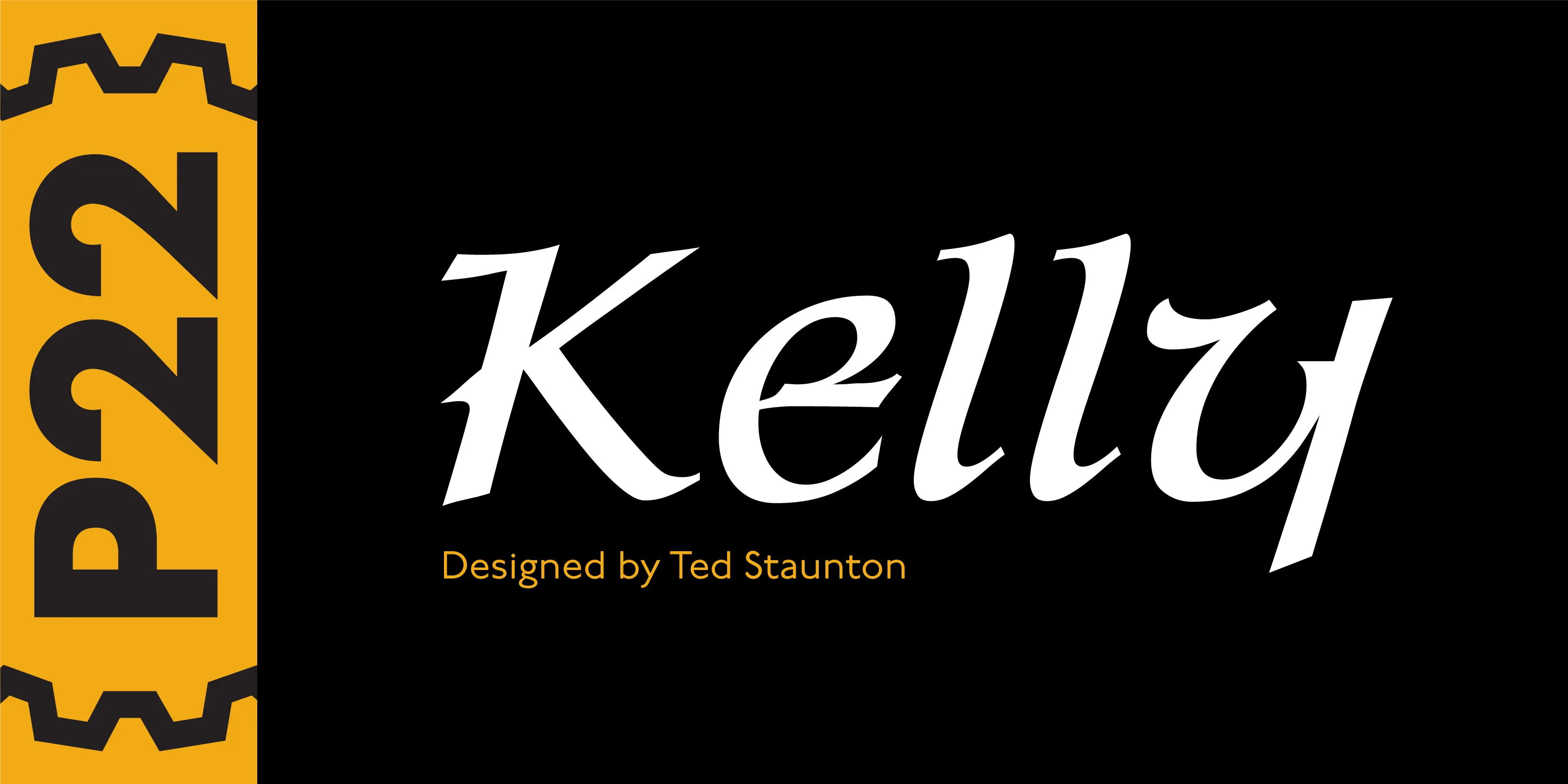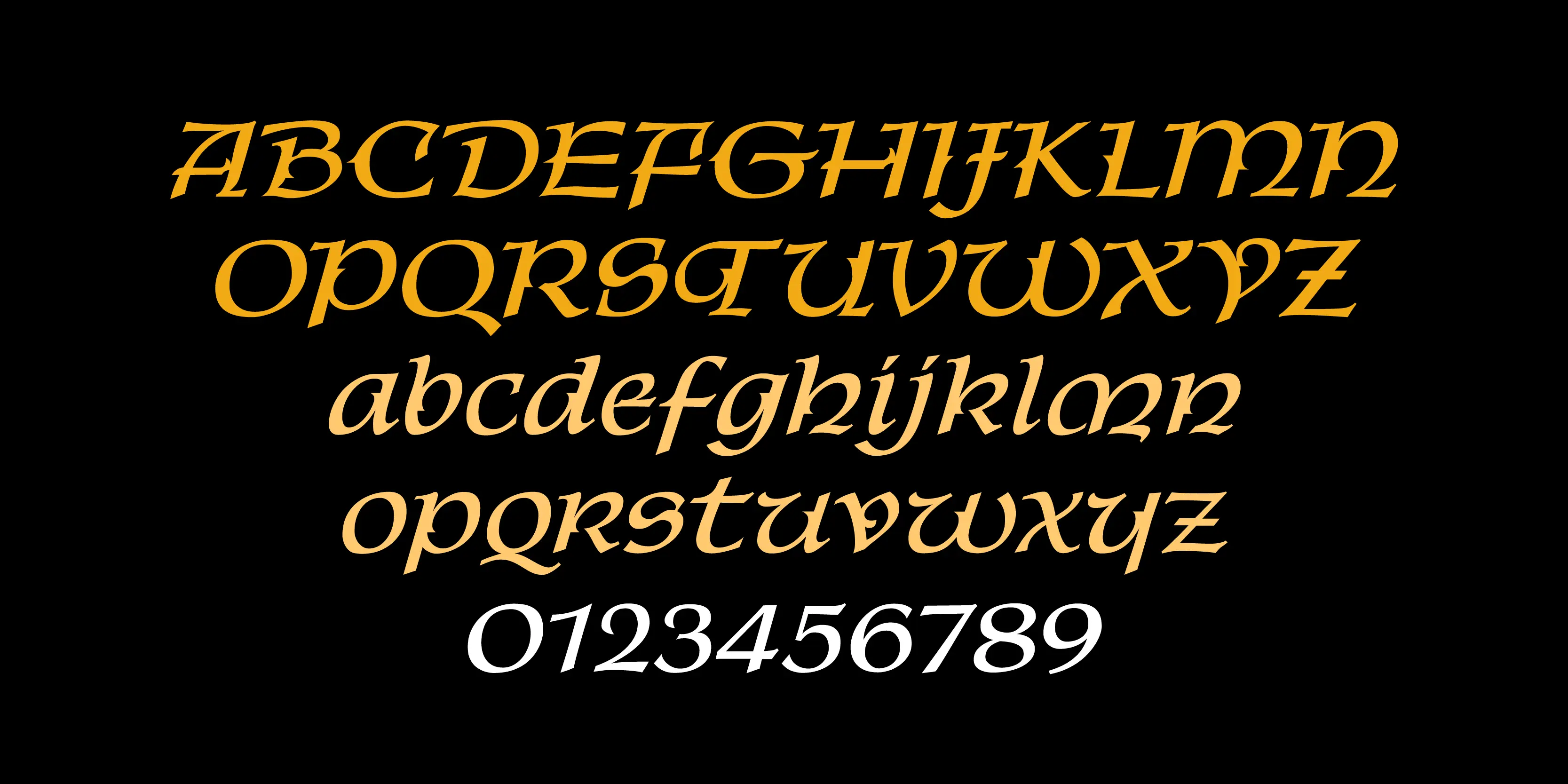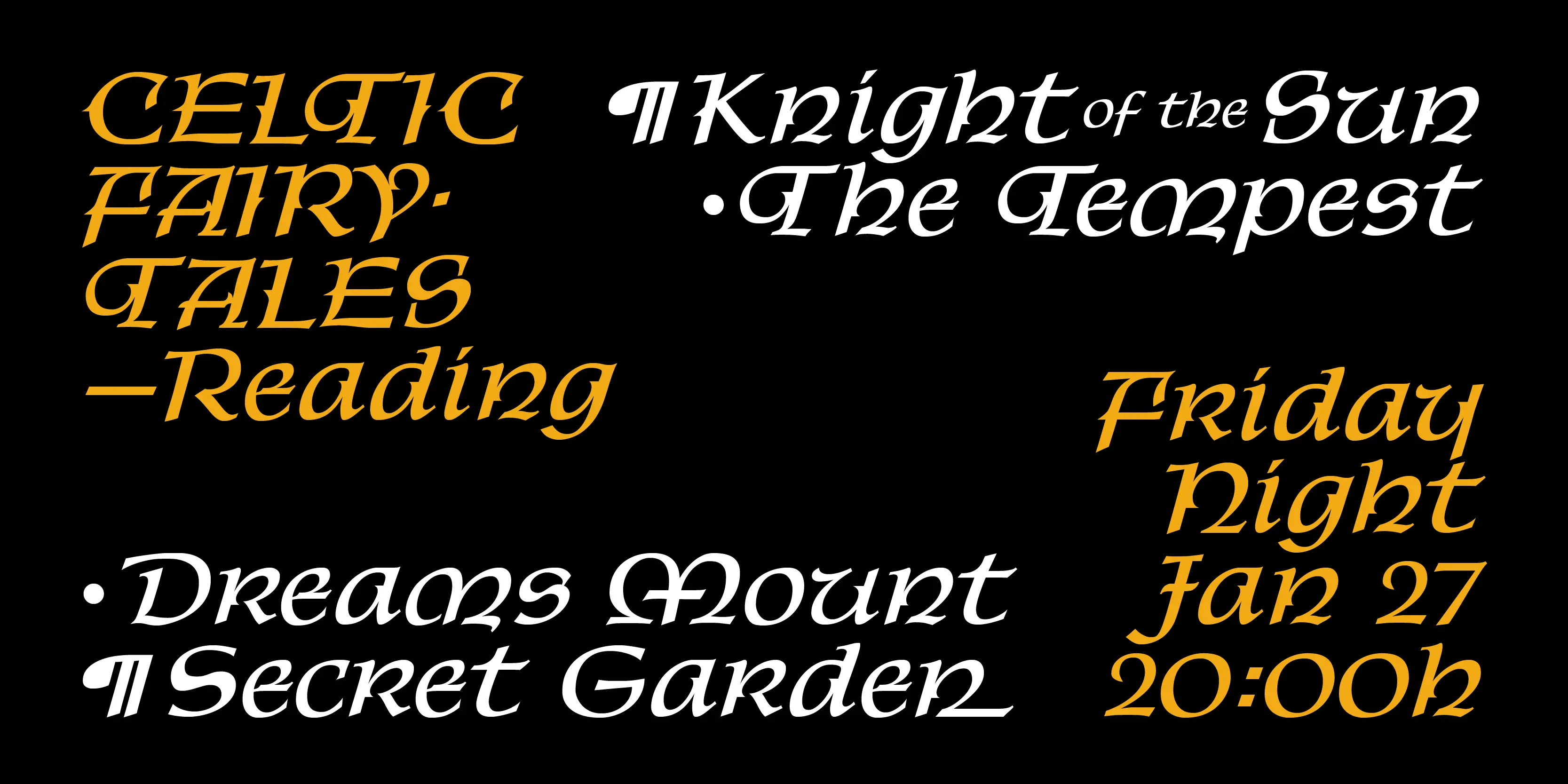
Kelly
P22 Kelly is a Celtic-styled uncial font with a medieval gothic flavor and an overall contemporary feel. The font is an addition to Ted Staunton’s collection of historical and period-based fonts. It is ideal for uses that need to evoke the Celtic spirit or the medieval period. Based on half-uncial Irish monastic handwriting of the 8th to 10th centuries, but instead of having a traditional upright stress, has an italic slant. Some Gothic influence is evident — like the thorn-like tick-marks decorating the capitals — but the rounded forms of h, m, n, u emphasize a wide, open, horizontal visual texture. The font is named in honor of the Book of Kells, the 8th-century masterpiece of Celtic calligraphic art, which is kept in Trinity College, Dublin.
- Common Ligatures
- Fractions
- Ordinal Numerals
- Slashed Zero
- Stylistic Alternates
- Stylistic Sets
- Superscript
- Swashes
- Titling Capitals